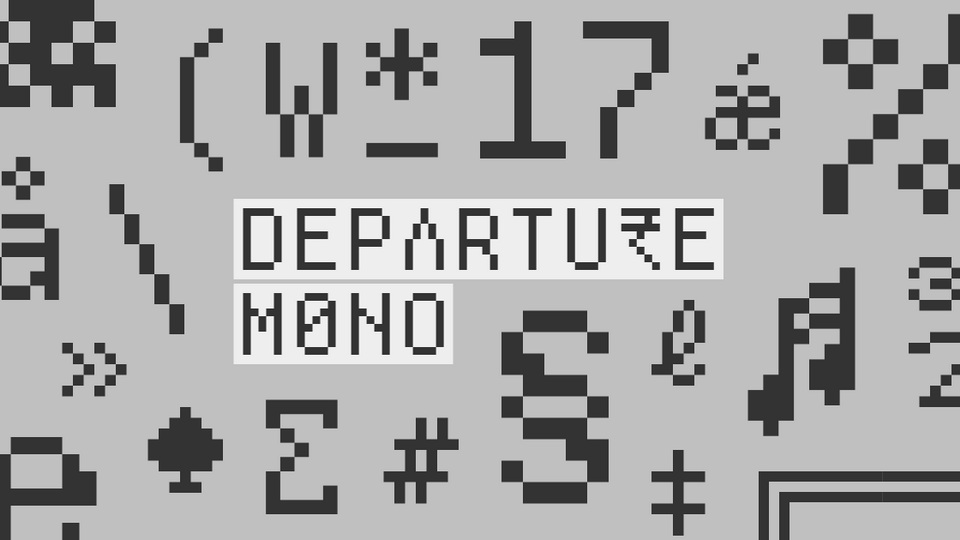
Download Departure Mono font, a monospaced pixel typeface with a lo-fi technical vibe inspired by the constraints of early command-line and graphical user interface.
Designer: Helena Zhang